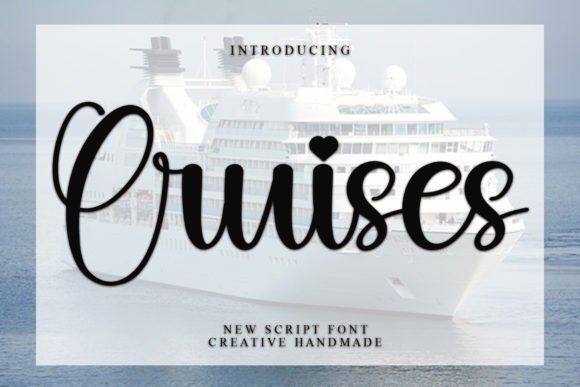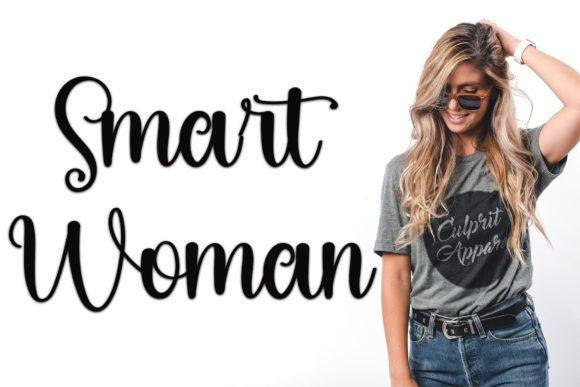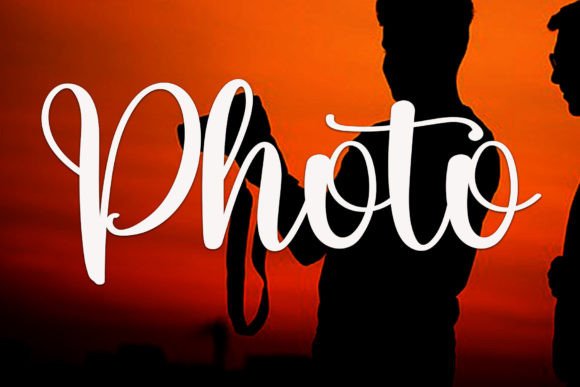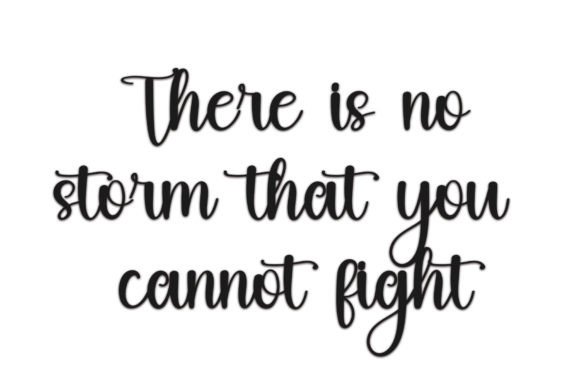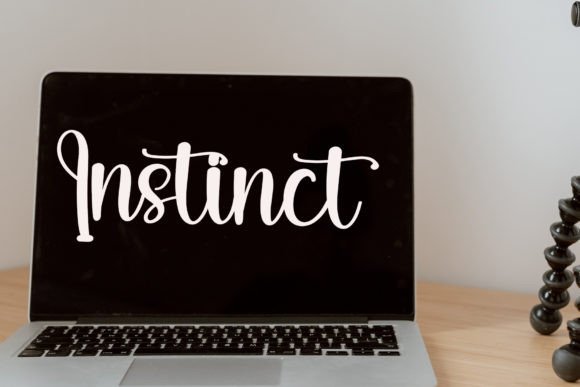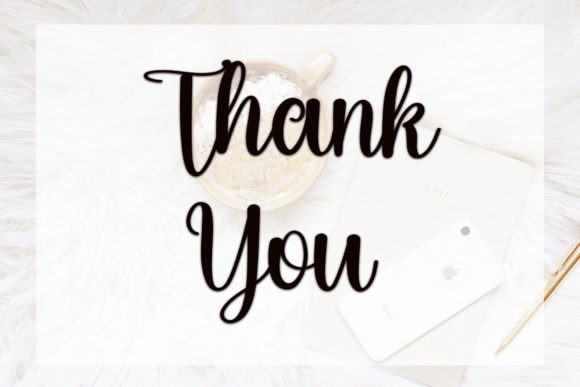
Cruising into Style: The Charm of Cruises Font
Have you ever been on a creative roll, where everything seems to fall into place, and your designs start to feel like a dream come true? For many designers, that moment comes when they discover the perfect font to bring their vision to life. For us, that moment came when we stumbled upon the Cruises Font – a gorgeous and bold handwritten font that exudes confidence and dynamism.
Cruises Font is more than just a font; it’s a statement piece that adds tons of nostalgic character to your designs. Whether you’re working on a travel brochure, a food blog, or a fashion brand, this font is sure to make your project stand out. As a valuable asset for designers, Cruises Font offers a unique blend of elegance and playfulness that’s hard to resist.
Cruises Font Key Features
- Unique Characteristics: Cruises Font features a unique, modern design with a mix of geometric and organic elements, making it perfect for creating eye-catching and sophisticated visual identities.
Cruises Font Review
I recently had the chance to work with the Cruises Font, and here’s my honest review.
- ✨ Unique and elegant design that’s perfect for luxury and high-end brands.
- ✨ High legibility, even at smaller font sizes, making it suitable for body text.
- ✨ Wide range of weights and styles available, allowing for customization and versatility.
- ⚠️ Limited support for certain languages, which may be a concern for international projects.
- ⚠️ May not be the best choice for digital displays, as it can appear pixelated at certain resolutions.
- ⚠️ Some users may find the font too ornate or distracting, which can be a drawback for certain designs.
The Cruises Font is a solid choice for designers looking to add a touch of sophistication and elegance to their projects. While it may have some limitations, its unique design and high legibility make it a great option for luxury brands and high-end designs.
Use the Cruises Font for designs that require a fun and playful tone, such as children’s party invitations or summer-themed posters.
Combine the Cruises Font with other bold and playful fonts to create a visually appealing design.
The Cruises Font is commonly used for:
- Summer-themed posters and flyers
- Travel and adventure-related designs
- Wedding and event invitations
Alternatives to Cruises Font
Inter is a sans-serif font designed by Rasmus Andersson. It is a highly legible font suitable for body text and is often used in digital products. Inter is a great alternative to Cruises Font when you need a clean and modern look for your design. It has a similar feel to Cruises Font but with a more geometric and futuristic aesthetic.
Montserrat is a sans-serif font designed by Julieta Ulanovsky. It is a versatile font that works well for both body text and headings. Montserrat is a good alternative to Cruises Font when you need a font with a strong urban feel. It has a similar sense of energy and dynamism to Cruises Font but with a more geometric and grid-based aesthetic.
Open Sans is a sans-serif font designed by Steve Matteson. It is a highly legible font that is suitable for body text and is often used in digital products. Open Sans is a good alternative to Cruises Font when you need a clean and modern look for your design. It has a similar feel to Cruises Font but with a more rounded and friendly aesthetic.
Merriweather is a serif font designed by Eben Sorkin. It is a classic font that works well for body text and is often used in print materials. Merriweather is a good alternative to Cruises Font when you need a font with a more traditional and timeless feel. It has a similar sense of elegance and sophistication to Cruises Font but with a more classic and conservative aesthetic.
Does Cruises Font support Unicode characters?
Yes, Cruises Font supports a wide range of Unicode characters, including Latin, Greek, and Cyrillic scripts. This makes it an excellent choice for designers working on projects that require multilingual support.